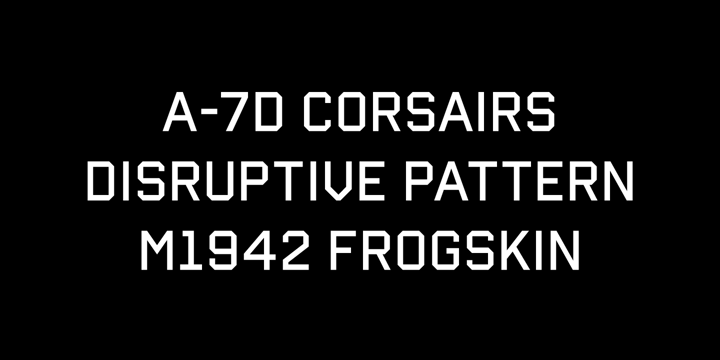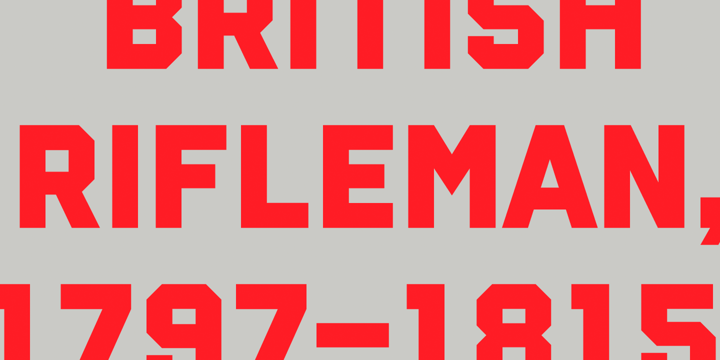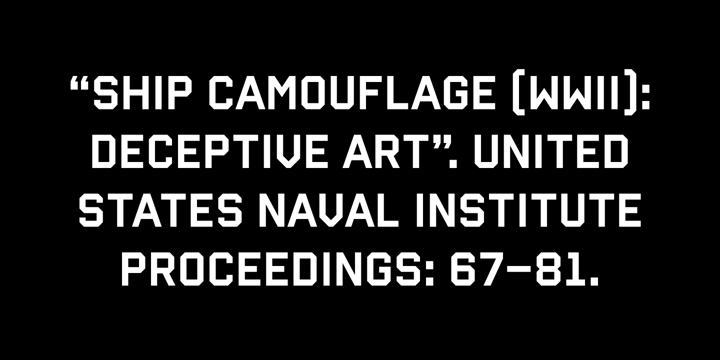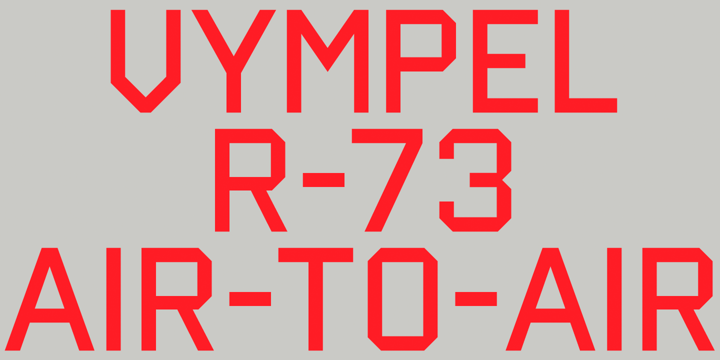
About Reload
Reload is a rectangular industrial geometric display typeface available in four flexible and distinct weights. Features include: Slashed zero Romanian s accent language feature Extended language support